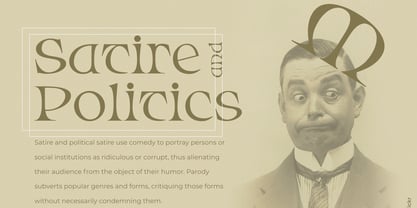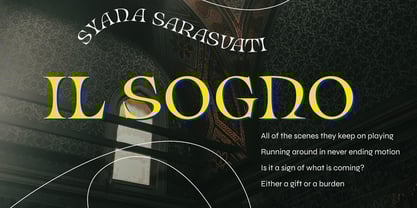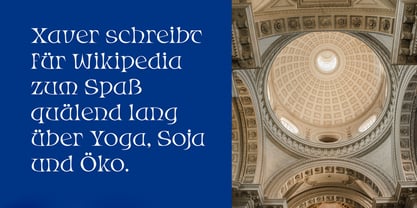
Zero Charisma
by Get Studio
The Zero Charisma Font Family was designed by Hermansyah and published by Get Studio. Zero Charisma contains 2 styles and family package options. More about this family
Zero Charisma is a quirky display font with a psychedelic taste. Helps to create layout modern and retro design projects.